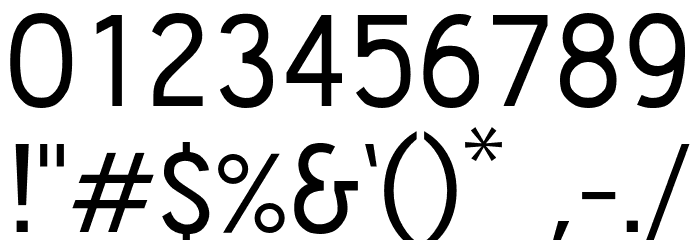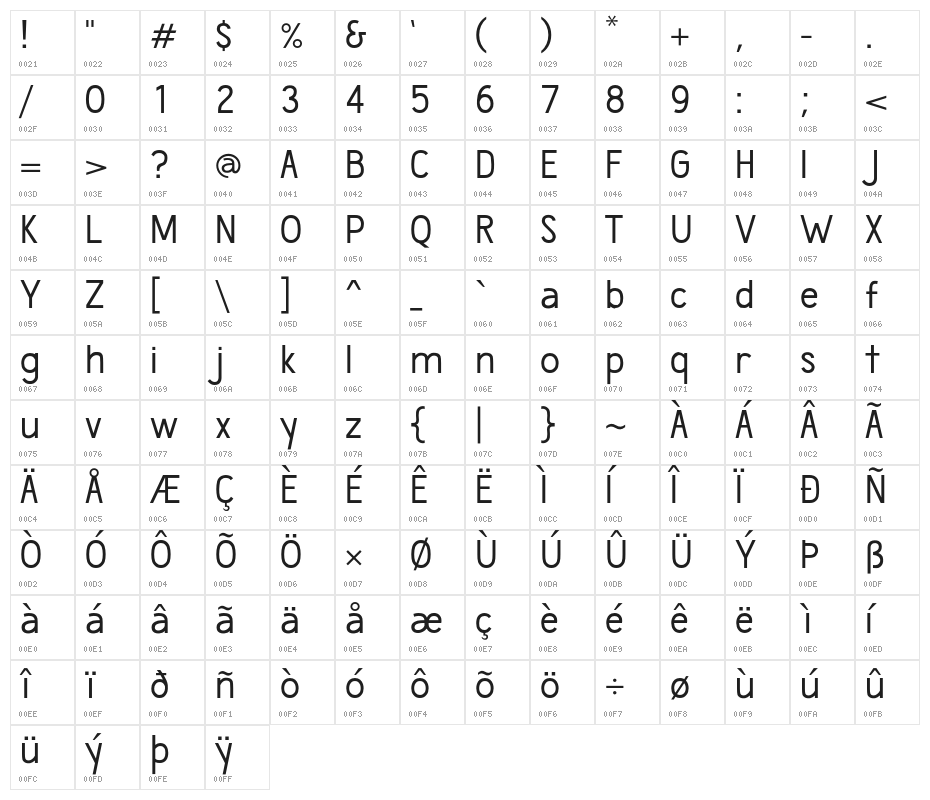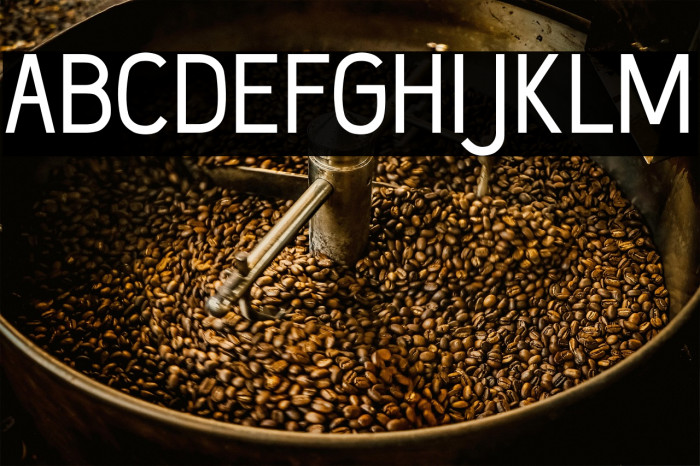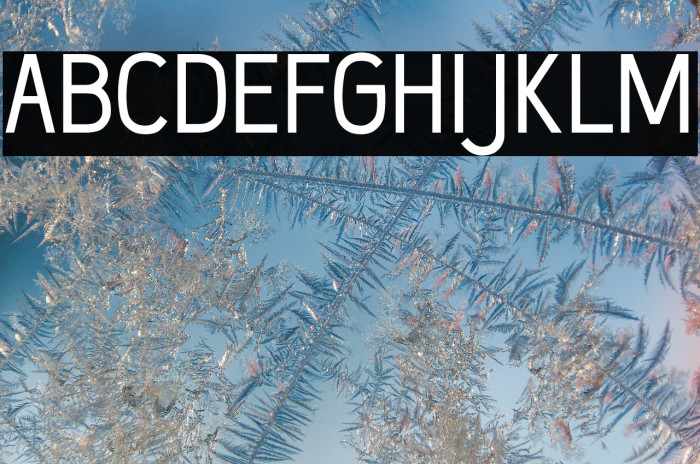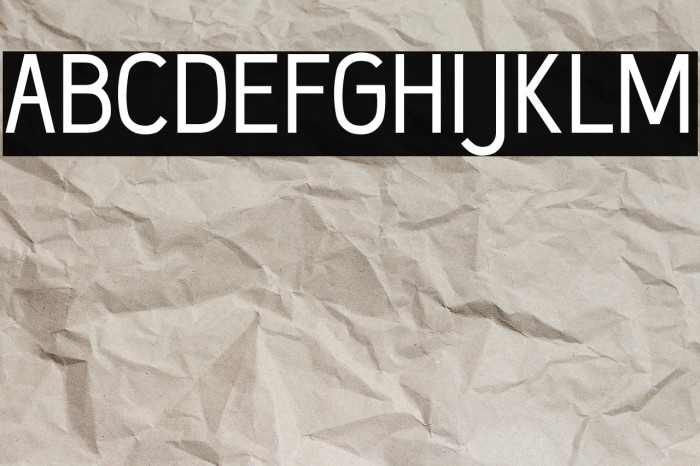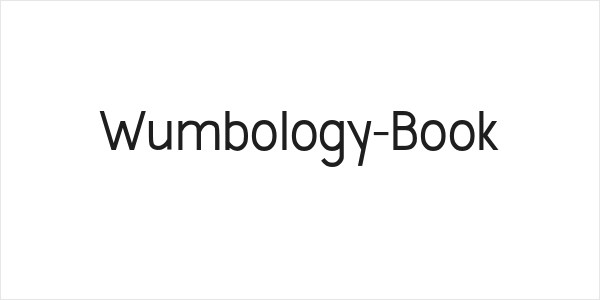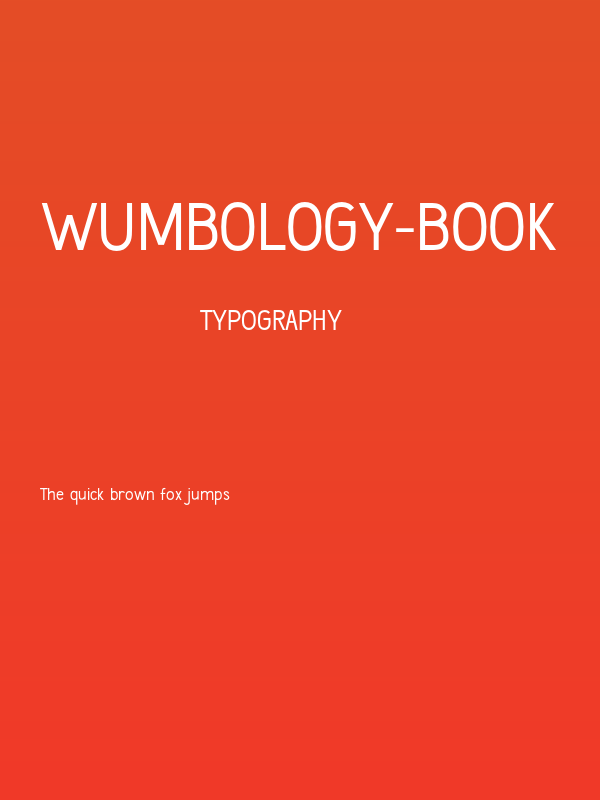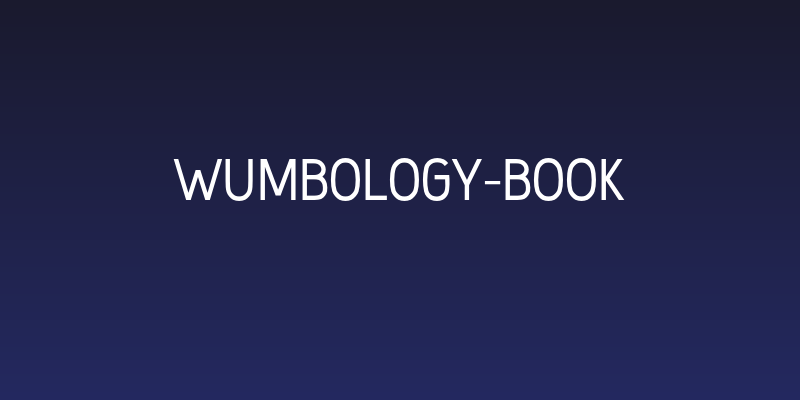
Wumbology-Book Font
Wumbology-Book Description
This font features a clean and modern sans-serif design, characterized by its uniform stroke width and geometric shapes. The uppercase letters are tall and slightly condensed, giving a sleek and professional appearance. The lowercase letters maintain a consistent height, contributing to a harmonious and balanced look. The numerals are clear and easy to read, with a straightforward design that complements the overall style. Special characters are well-integrated, maintaining the font's minimalist aesthetic. The font's simplicity and clarity make it versatile for various design applications.
| Proposed Projects | Ideal for corporate branding, web design, user interfaces, and editorial layouts. |